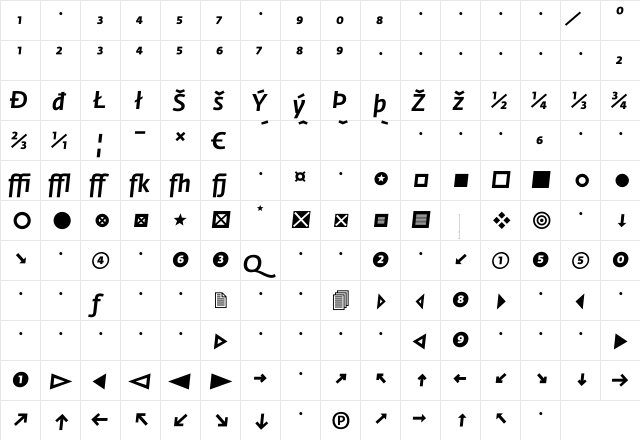
Fedra Sans Medium Italic Expert
Design Context for Fedra Sans Typeface
Fedra Sans offers clean, dependable letterforms without strong stylistic allegiance, making it a practical choice for designers who need flexibility. The dynamic lean of this cut emphasises speed and emphasis in any layout.
Pro Tip: Try Fedra Sans for annotation and caption copy alongside an upright companion — the contrast in angle creates a dynamic but ordered typographic system.